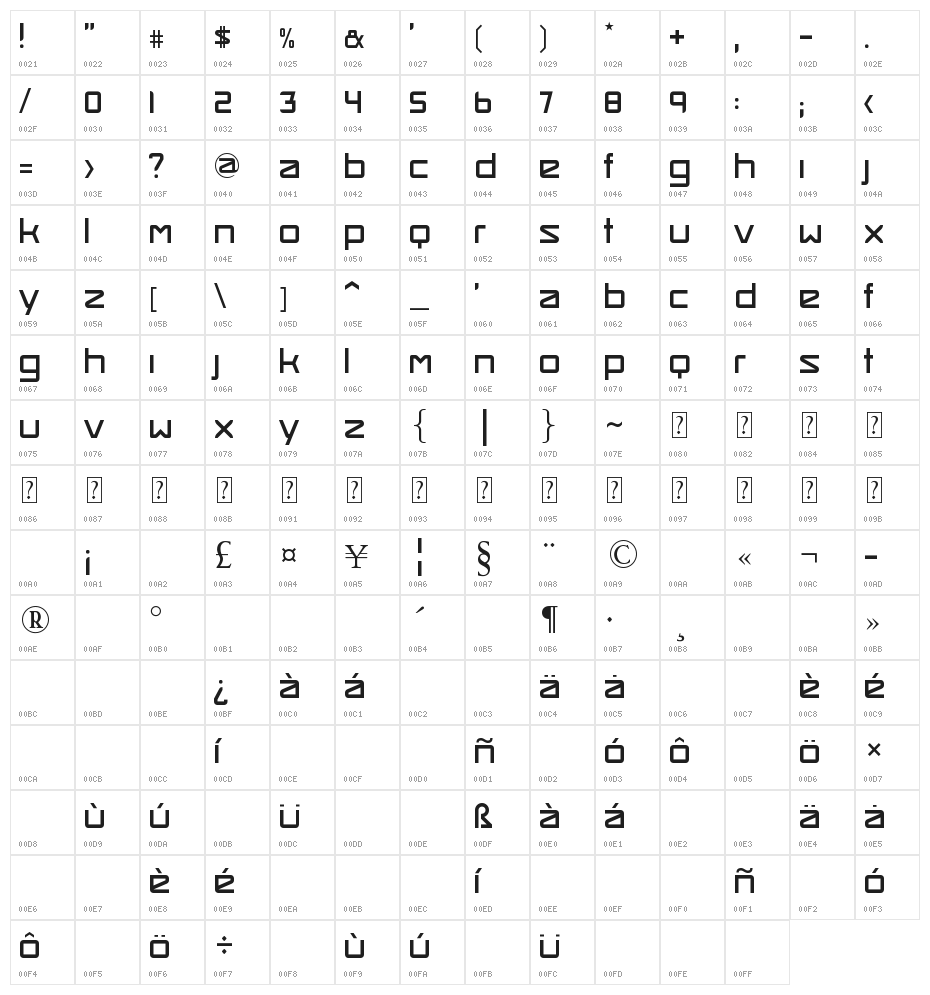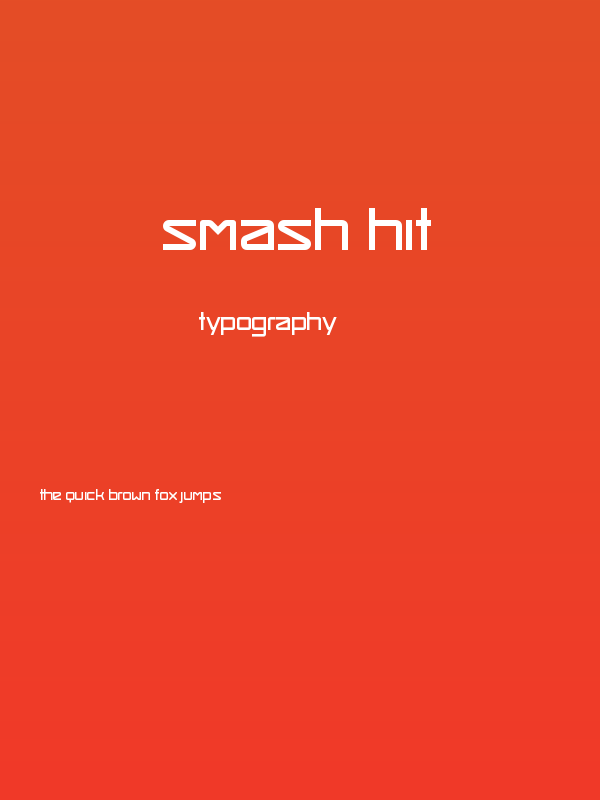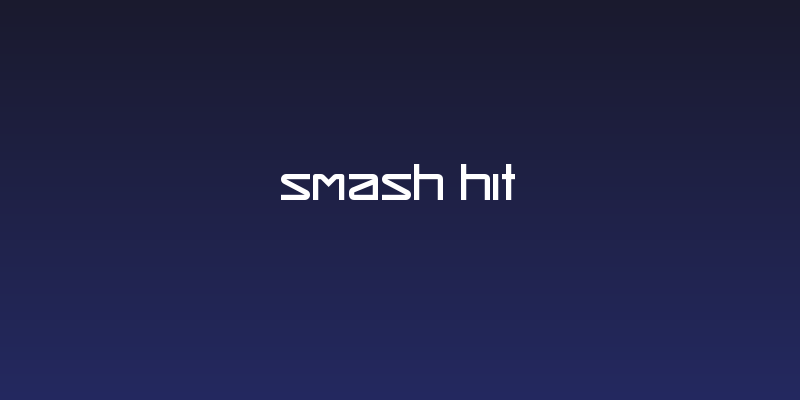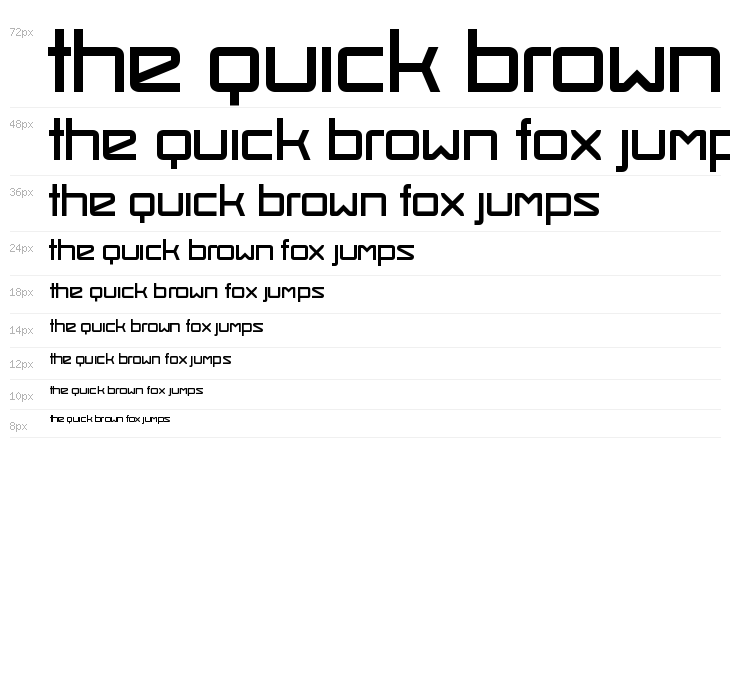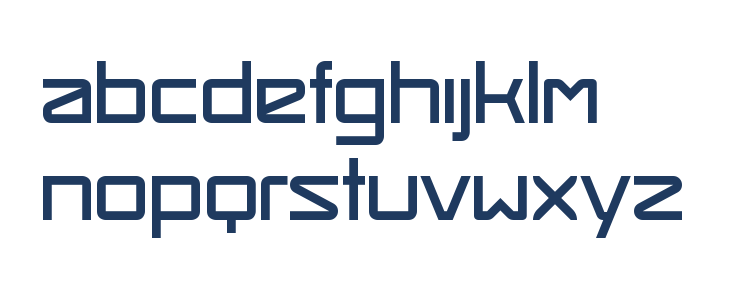
Smash Hit Font
Smash Hit Description
This font features a modern, geometric design with a strong emphasis on clean lines and angular shapes. The characters are uniformly structured, giving it a cohesive and balanced appearance. The uppercase and lowercase letters maintain a consistent height, which contributes to its orderly aesthetic. The numerals are distinct and easily readable, with a similar geometric style. Special characters are designed to match the overall theme, ensuring a seamless integration with text. The font's boldness and clarity make it suitable for various design applications, offering a contemporary and professional look.
| Use Case | Headlines, Logos, Digital Interfaces |
| Proposed Projects | Ideal for tech branding, modern posters, digital interfaces, and futuristic designs. |